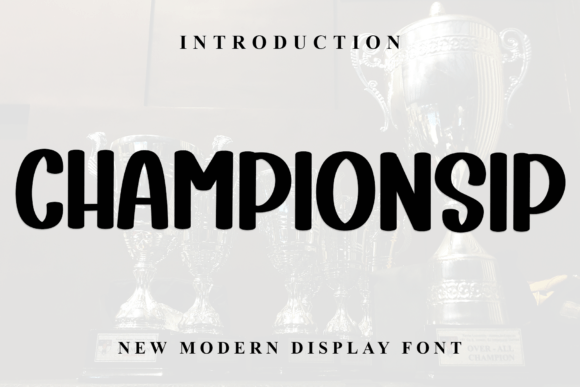
Enter the Championsip Font, a delightful and charming typeface that embodies the spirit of the holiday season. With its intricate details and playful flair, this font is perfect for adding a touch of nostalgia and cheer to your holiday projects. From greeting cards to gift labels, the Championsip Font is a valuable tool for designers looking to create memorable and festive designs.
Championship Font Key Features
- Font Family: Championship Font is a sans-serif font designed for sports and competition-themed applications.
- Unique Characteristics: The font features bold, energetic lines and a dynamic feel, making it ideal for sports, competition, and action-themed applications.
Championsip Font Review
Championsip Font is a great option for those looking for a bold and eye-catching display font. Here’s what I think works well: ✨ It’s perfect for creating a dynamic and energetic atmosphere, making it ideal for sports-related projects, awards, or certificates. ✨ The font is highly legible, even at larger sizes, which is essential for display purposes. ✨ It’s also quite versatile and can be used in a variety of contexts, from digital to print.
However, there are some limitations to consider: ⚠️ The font might be too bold or overwhelming for certain designs, and it may not be suitable for projects that require a more subtle or elegant look. ⚠️ Additionally, the font is quite condensed, which can make it difficult to read in certain cases. ⚠️ Lastly, the font is not as extensive as some other display fonts, with a limited number of weights and styles available.
Overall, I think Championsip Font is a solid choice for designers looking for a bold and attention-grabbing display font. While it may have some limitations, it’s a great option for projects that require a dynamic and energetic look.
Recommendations
- Use Championsip Font for projects that require a bold and eye-catching display.
- Be cautious when using the font in smaller sizes or for more subtle designs.
- Consider pairing Championsip Font with a more legible font for body text.
The Championship Font is commonly used for:
- Creating sports-themed graphics and designs.
- Adding a touch of elegance to wedding invitations and event materials.
- Designing motivational and inspirational quotes and posters.